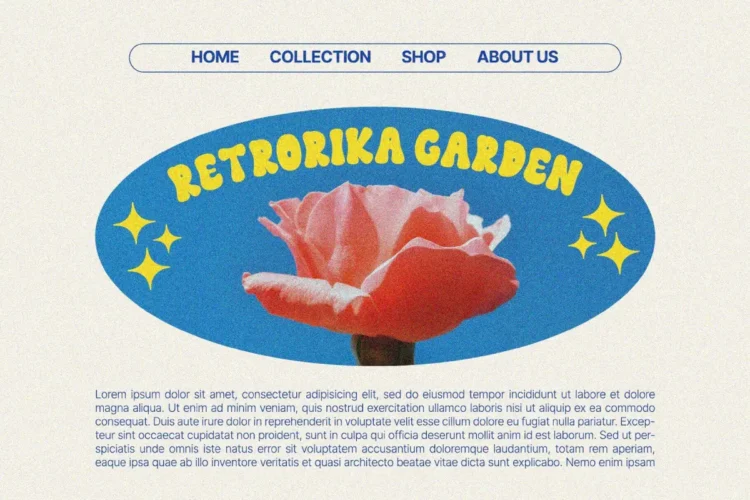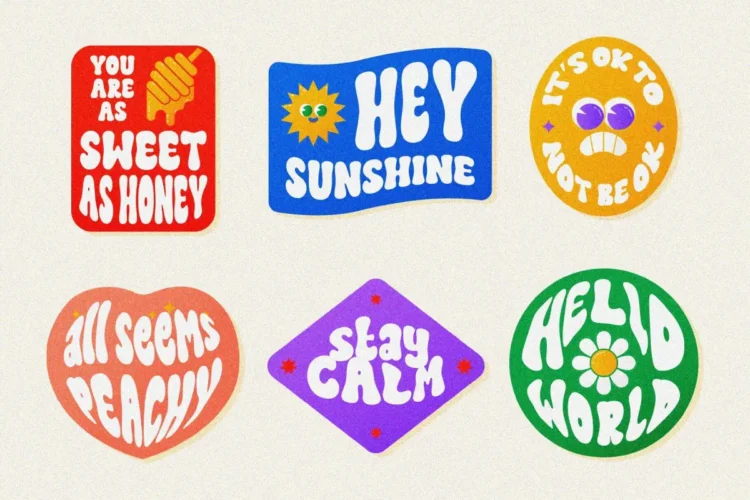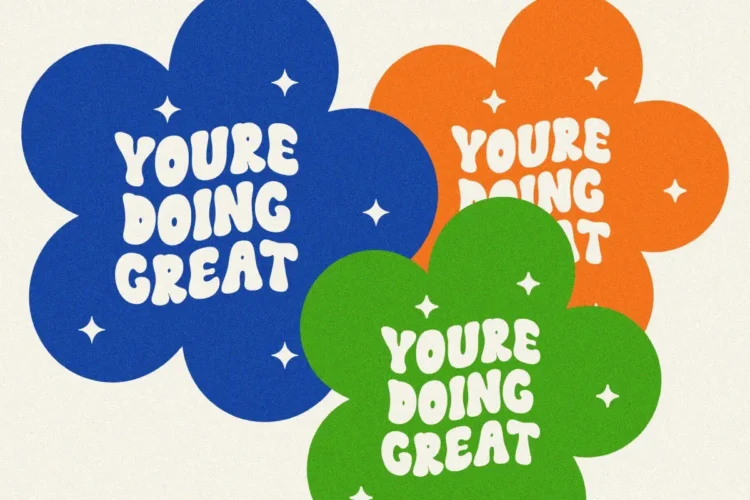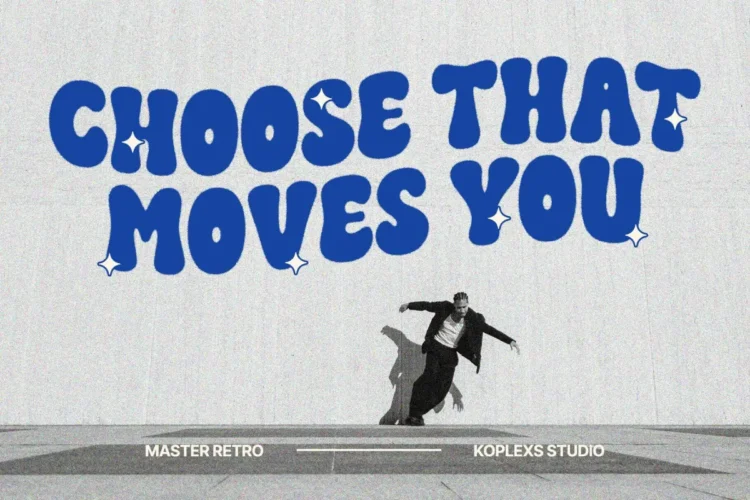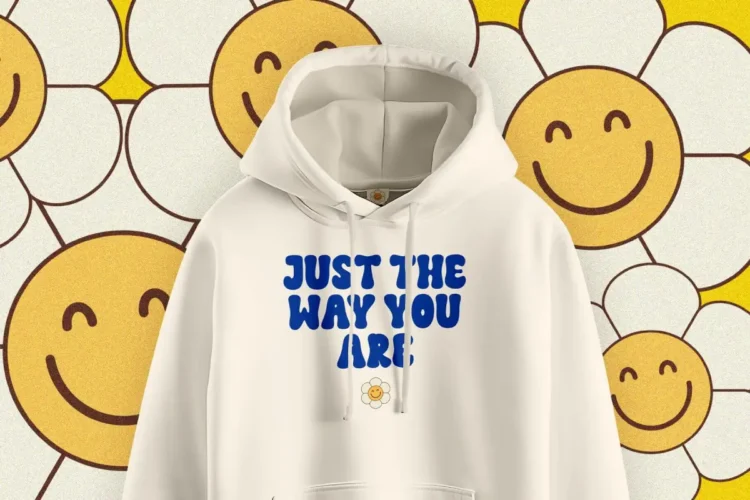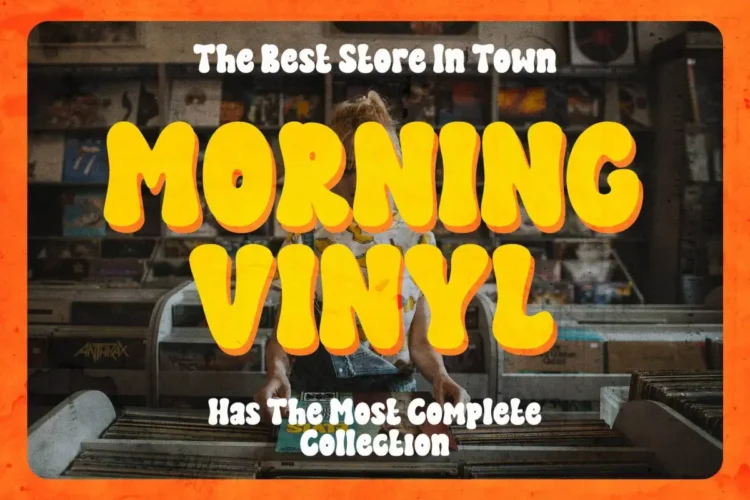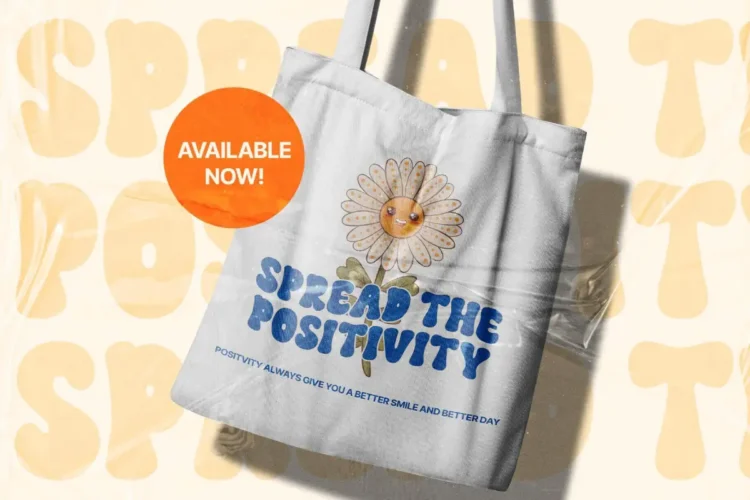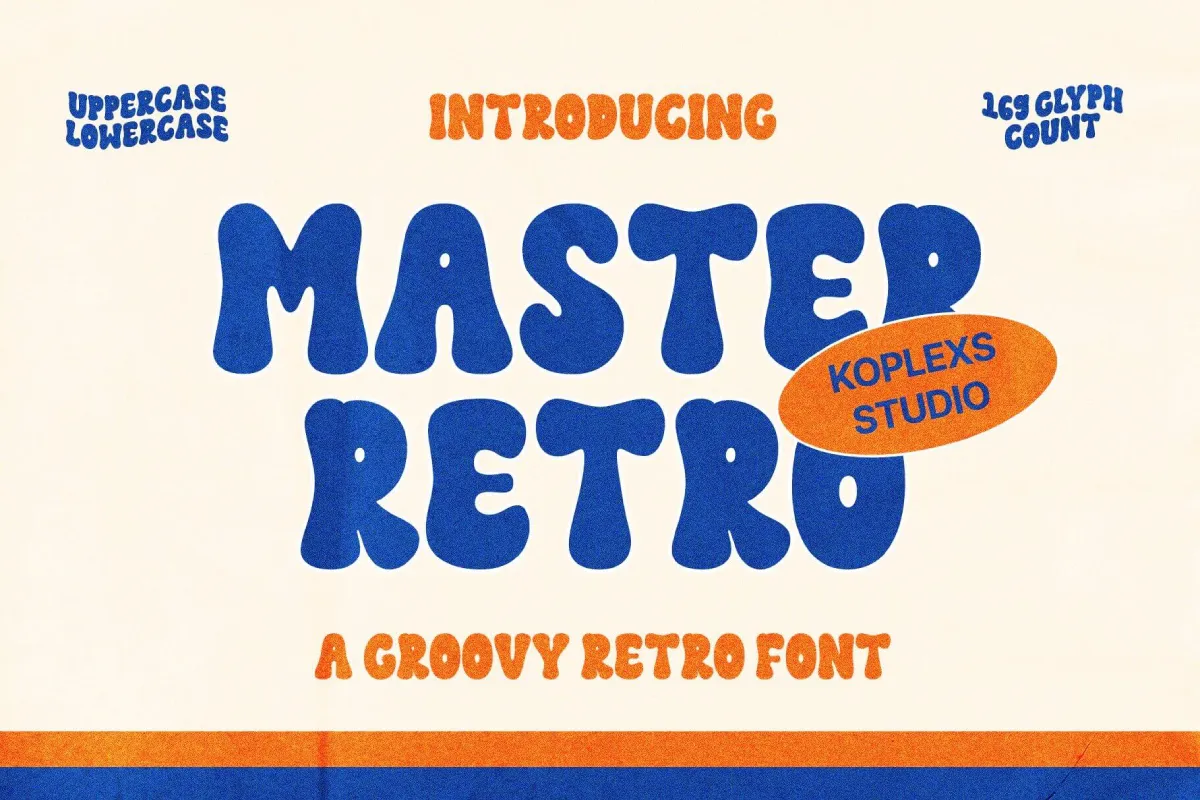
Master Retro Font – A Groovy Bubble Retro Font for Branding, Logos & Aesthetic Designs
Master Retro Font is a groovy retro font inspired by bold 70s and 80s bubble font styles, combining vintage charm with a touch of modern aesthetics. With its chunky, wavy, and playful curves, this fancy font is perfect for creating standout designs that bring nostalgia and positivity. Whether you’re working on branding font projects, logo font, cosmetic font packaging, or want a stylish text effect, Master Retro Font offers the perfect mix of retro style fonts and modern appeal.
This handwritten font-inspired design is versatile for multiple uses from aesthetic fonts for Instagram posts, luxury fonts for fashion branding, fancy text for merchandise, to vintage style fonts for editorial layouts. Its groovy look also makes it an excellent choice for retro groovy font posters, bubble gum font stickers, retro neon font signage, or any cool text fonts that need a bold statement.
Built with 169 glyphs, this vintage typeface balances retro typography with readability, making it one of the best vintage fonts for both digital and print. Add a magic retro font touch to your creative projects with this bright retro font and embrace the charm of nostalgic fonts.
Master Retro Font Perfect for :
Master Retro Font is versatile and works beautifully for :
- Branding & Logo Design (fashion, cosmetic, lifestyle, retro-themed brands)
- Packaging (snacks, bubble gum, beauty products, vintage goods font)
- Social Media Content (Instagram posts, quotes, aesthetic graphics)
- Merchandise (t-shirts, hoodies, tote bags, mugs, stickers)
- Posters & Flyers (music events, festivals, vintage shops)
- Editorial & Magazines (retro typography layouts, nostalgic spreads)
- Web & UI Design (creative websites, retro neon style headers)
Bring your designs to life with this retro bubble font, the ultimate stylish font maker for anyone who loves creative vintage fonts, retro wave fonts, and groovy 70s fonts.